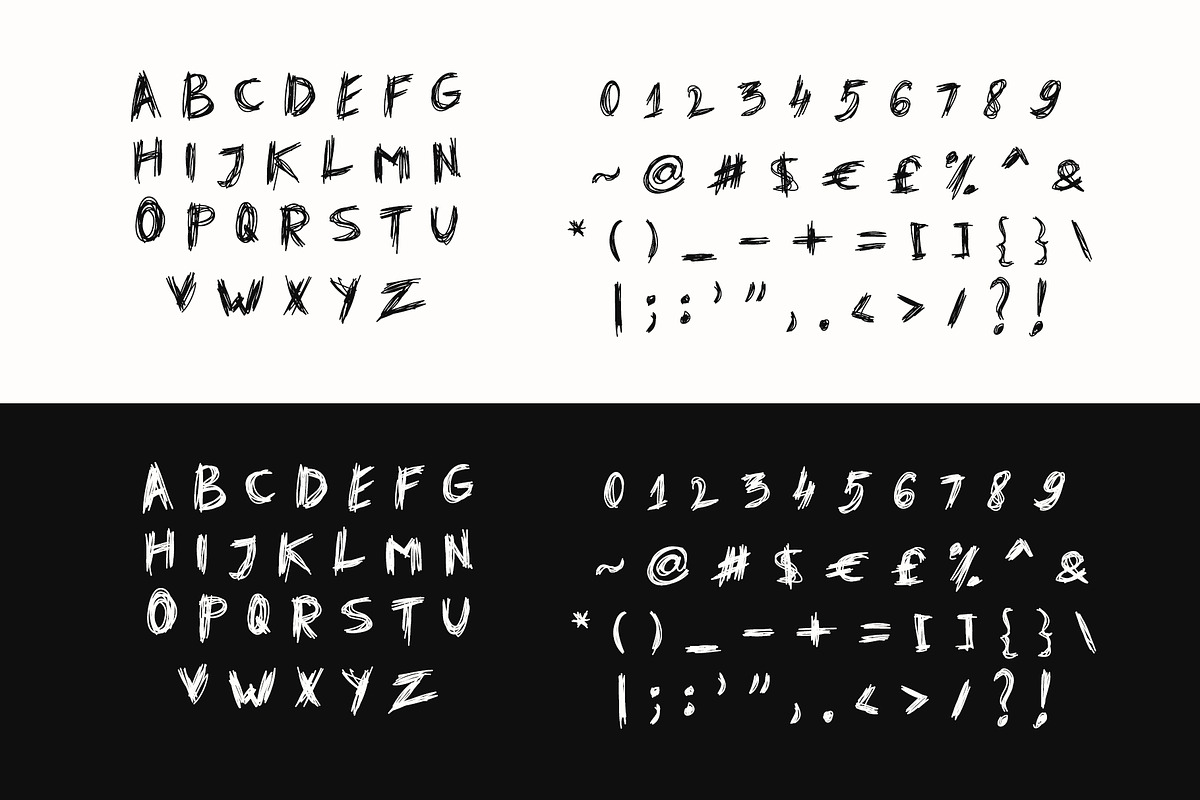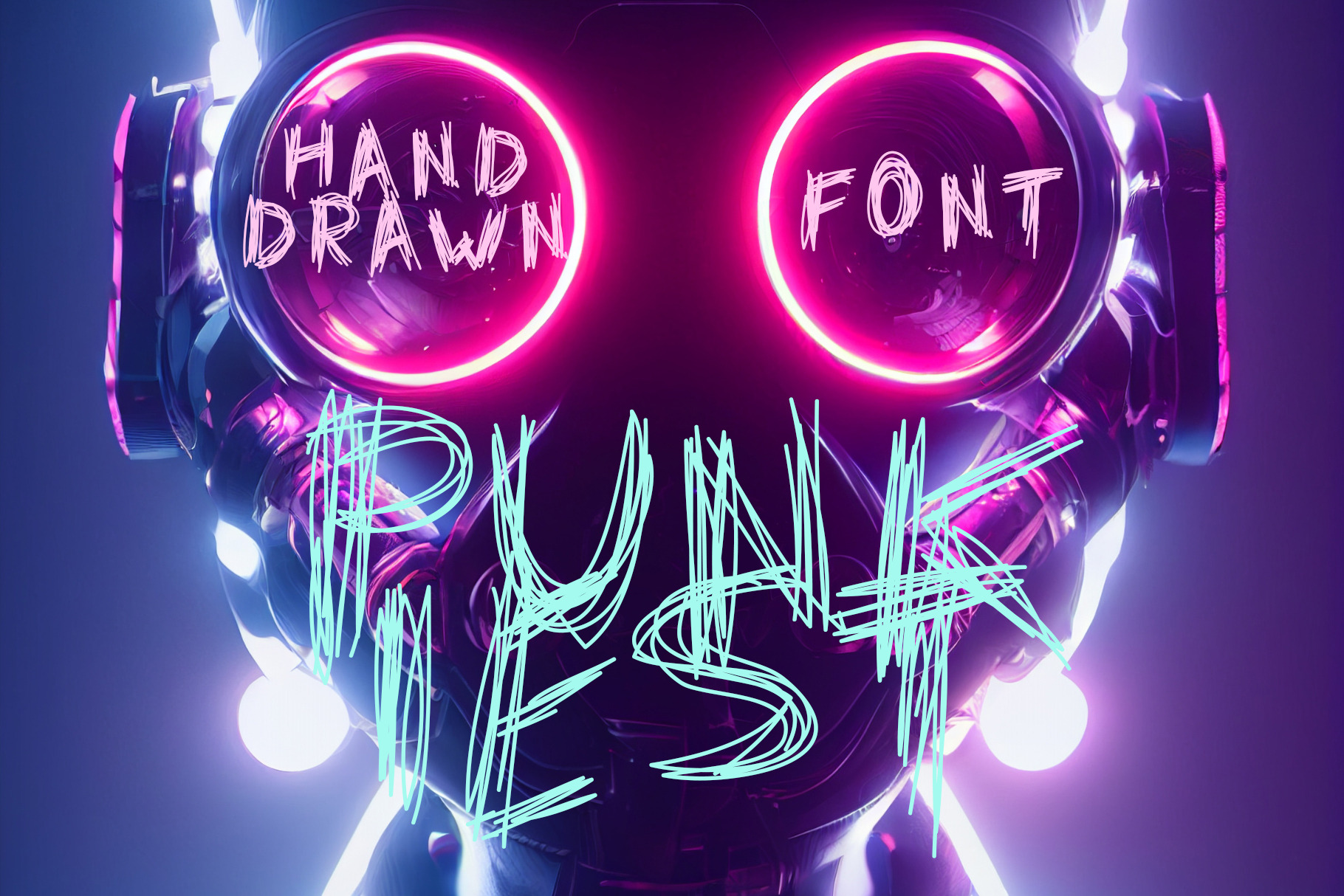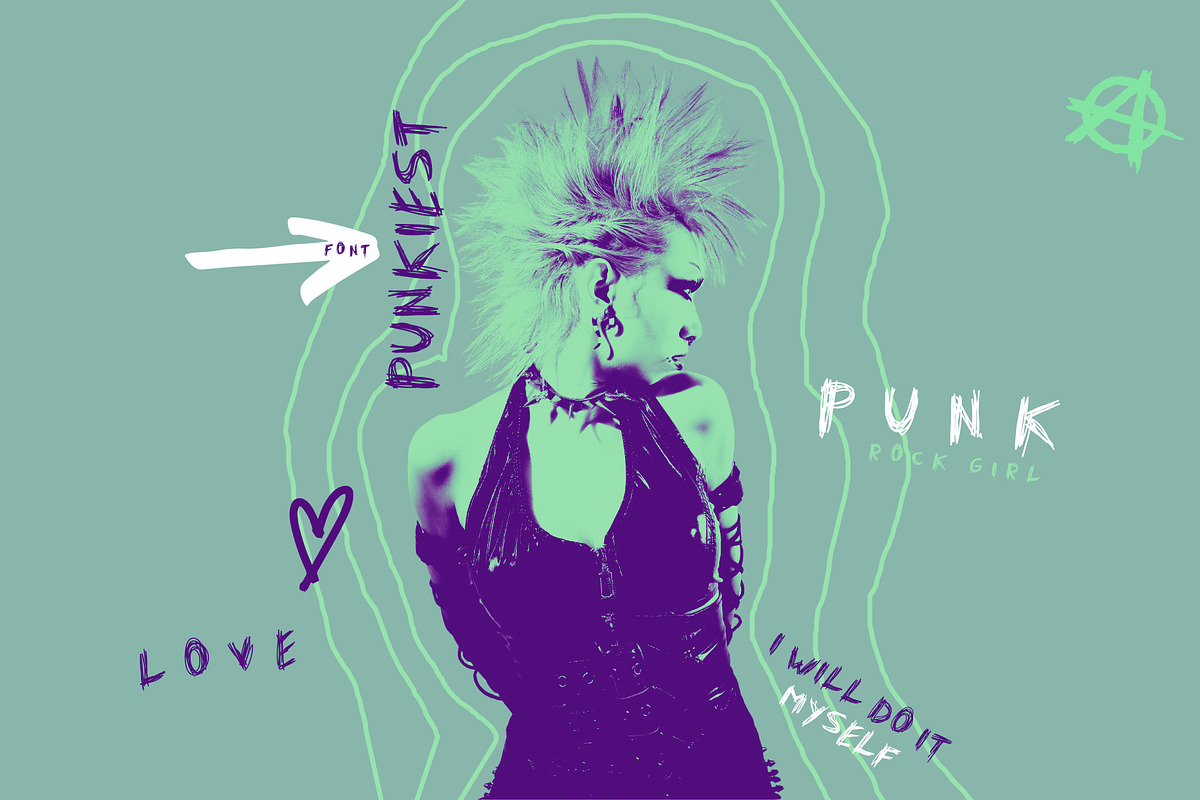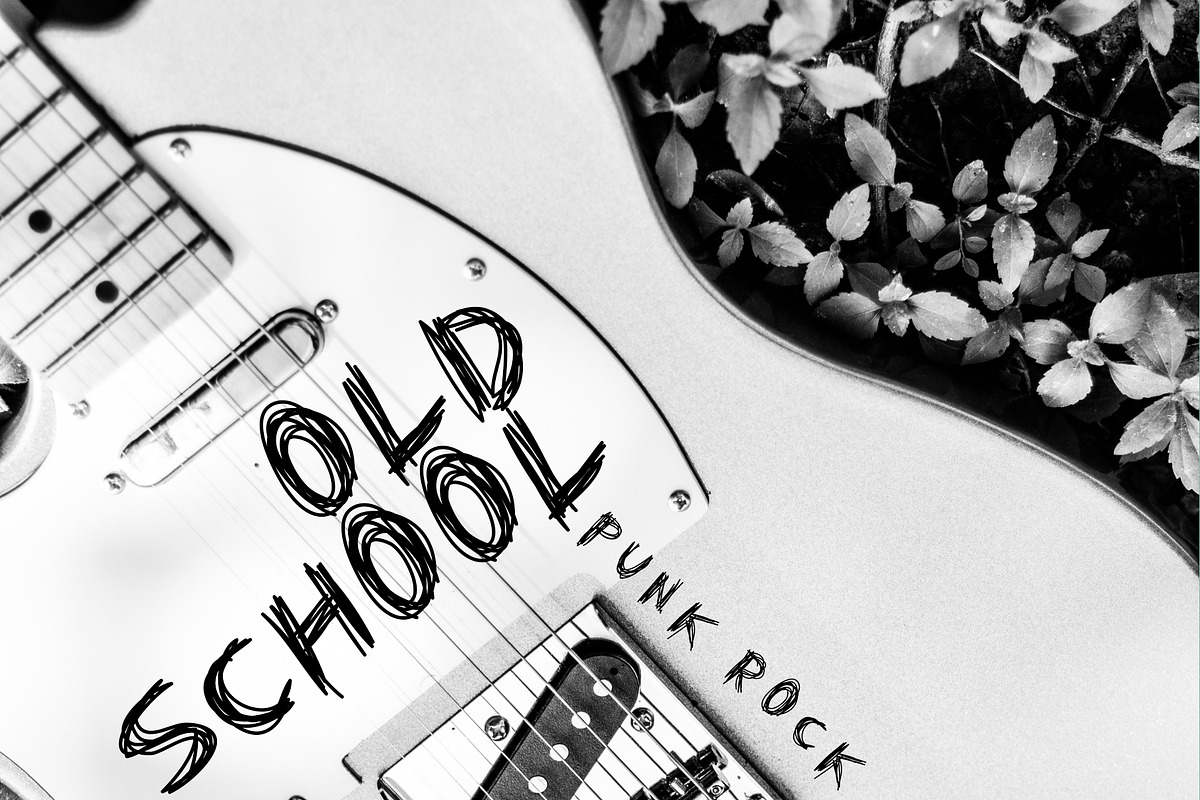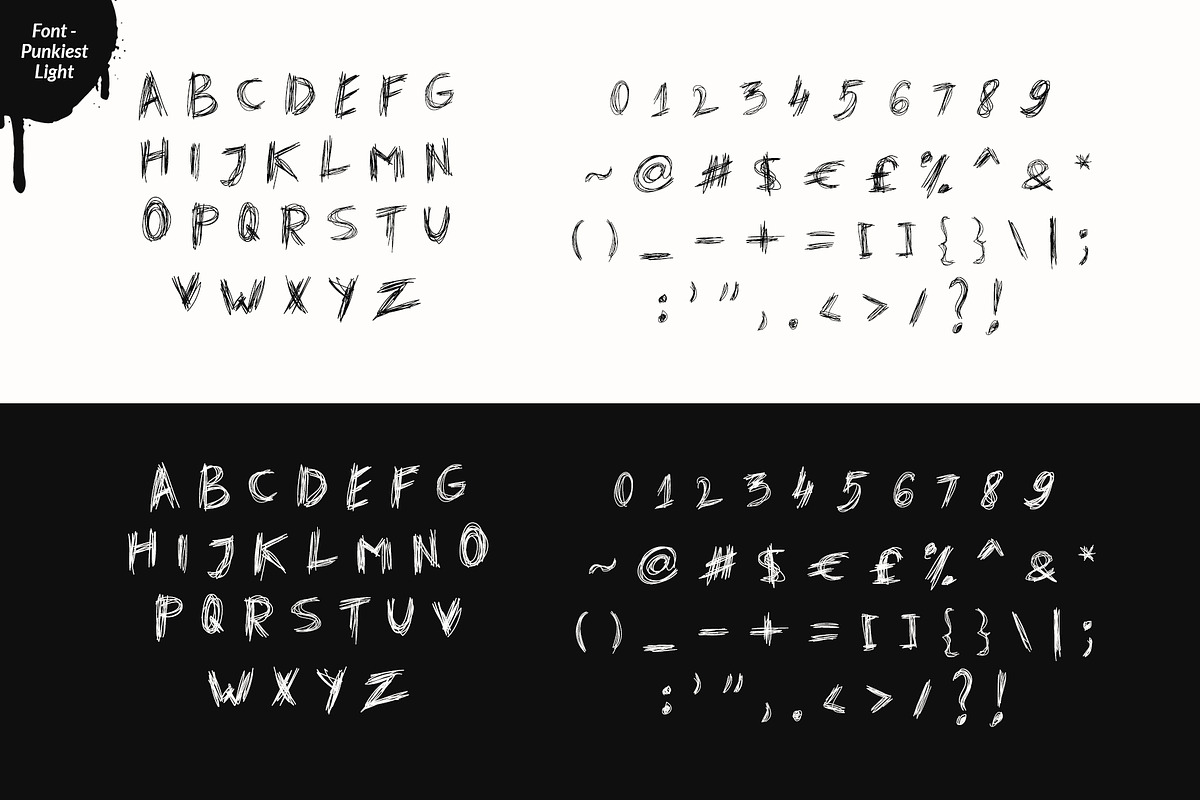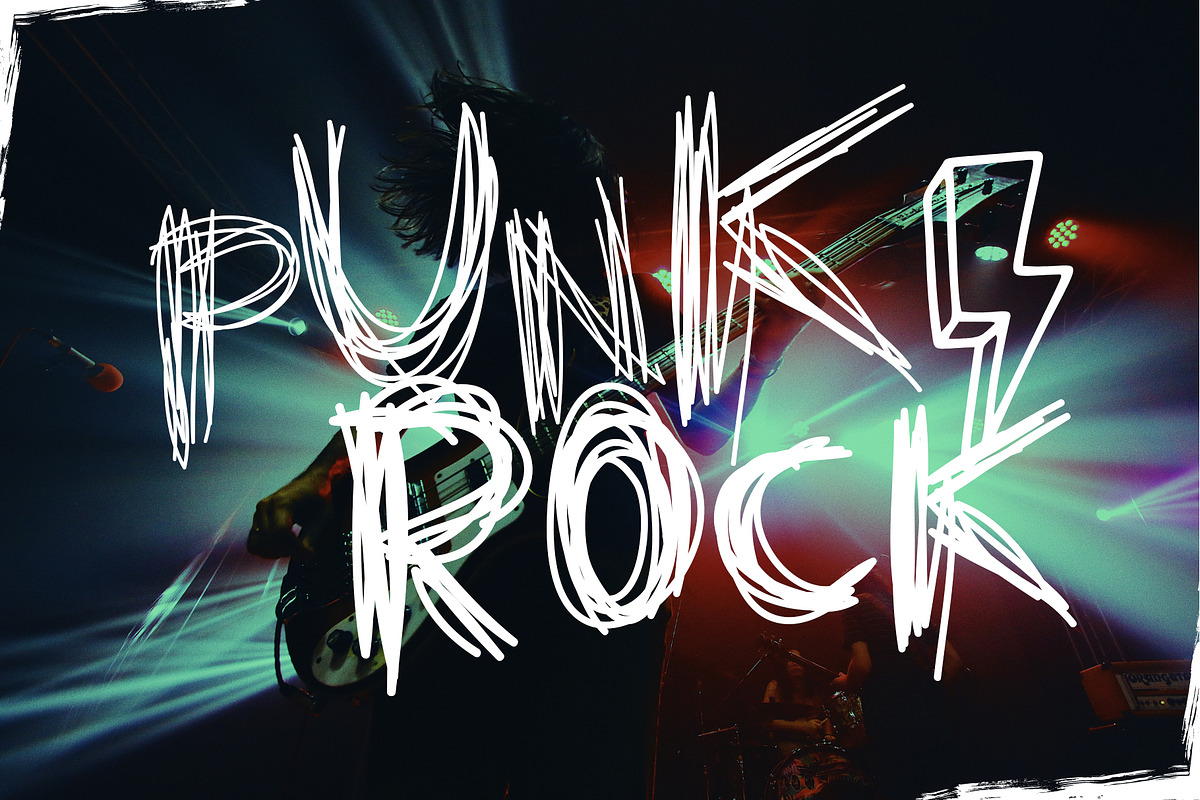
Punk trendy hand drawn font-Punkiest
Introducing punk and grunge hand drawn squiggles uppercase font "Punkiest" and it's light version "Punkiest Light". Use this trendy punk font when you need to give cool punky feel to your designs.
This uppercase font works great in trendy, grunge design styles when you need a good accent for titles, headlines. You can use it for small text too. It’s great for various print and web projects - especially cool posters and banners, blogs, invitations, flyers, short quotes in social media, brochures, packaging, business cards, etc. "Punkiest" font looks beautiful in vibrant, neon colors, as well as black & white.
"Punkiest" and "Punkiest Light" fonts consist of:
- Uppercase characters